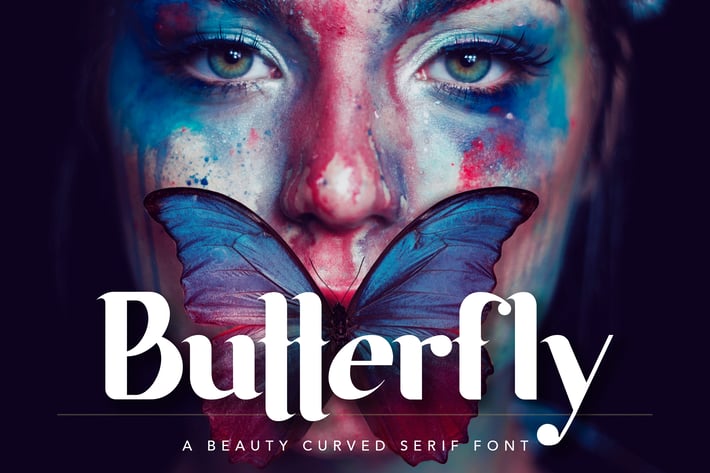
Butterfly Beauty Font
Butterfly font is a beautiful contemporary font with beautiful ligatures and alternates. It is a display font that perfect for branding projects, logo, wedding designs, social media posts, advertisements, quoted text, coffee shop, product packaging, product designs, label, photography, watermark, invitation, stationery, and any projects, it makes with a high level of legibility. It's also a perfect fit for a beauty-themed - or a stylish text overlay to any background image.
Main Features:
+ Uppercase & Lowercase letters
+ Lowercase alternates
+ Numbering and Punctuation
+ Ligatures
+ Accented characters